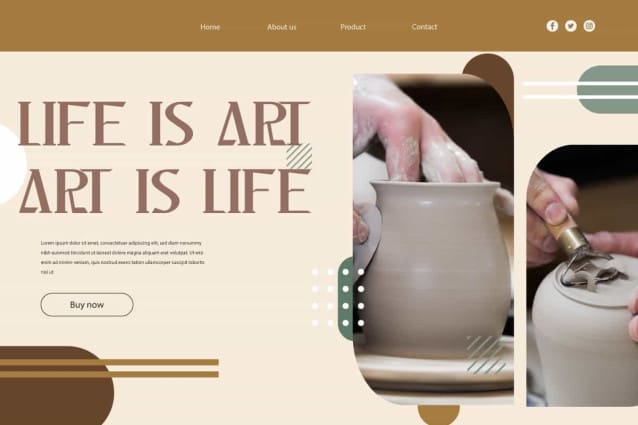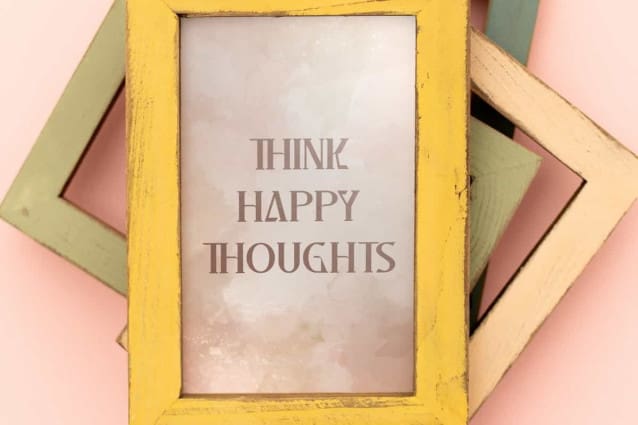
Headful Font
Headful Font is an aesthetic serif display font with sharp edges. This font has bold and sophisticated look that will be timeless. It will be perfect for any designs, such as brand image, cover, custom design, invitation, label, marketing material, menu, poster, product packaging, quotes, signage, stationery, web, and many more!
Headful Font includes full set of ALL CAPS for Uppercase and Lowercase Basic Characters, Numerals and Punctuation. This font has classy and clean look which is perfect choice for many industries, such as advertising, art, beauty product, cafeteria, fashion, jewelry and accessories, photography, printing, publishing, restaurant, etc.